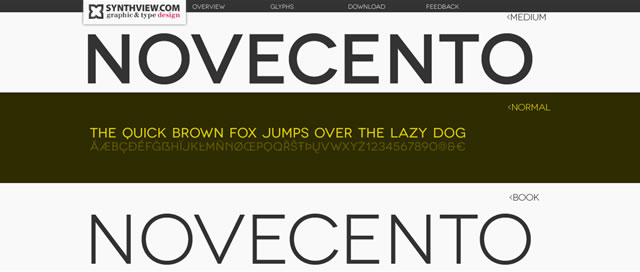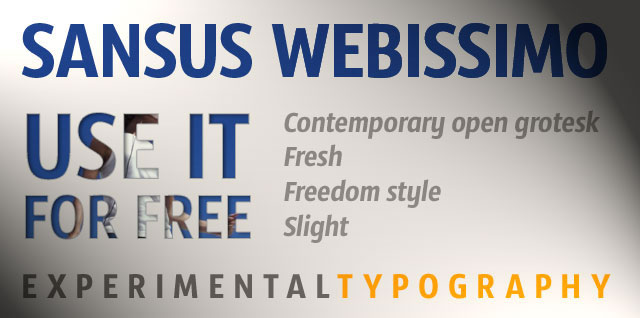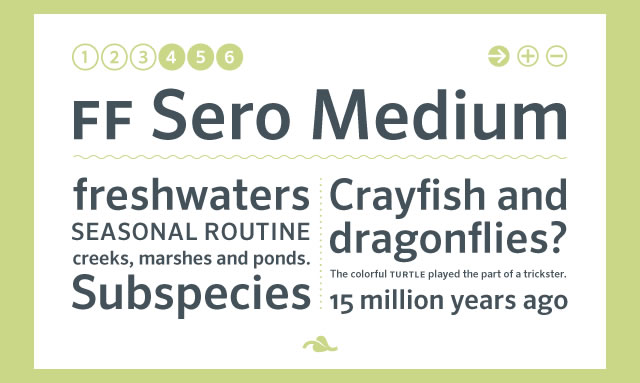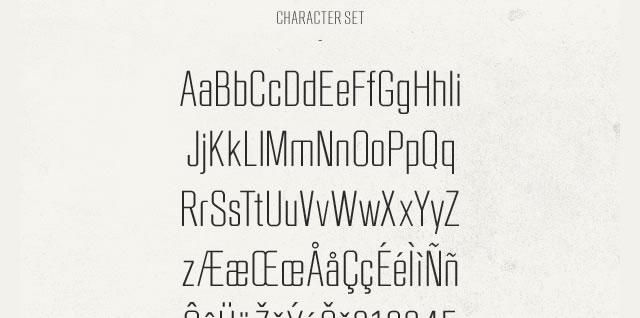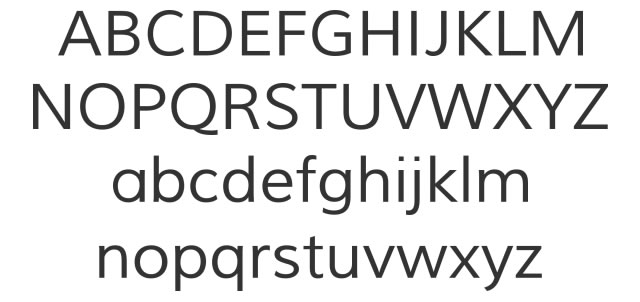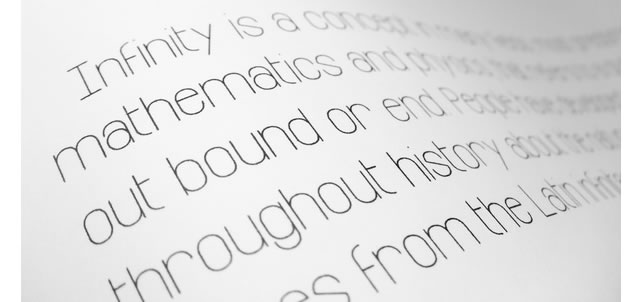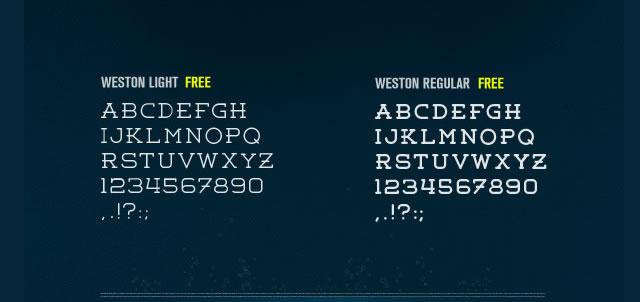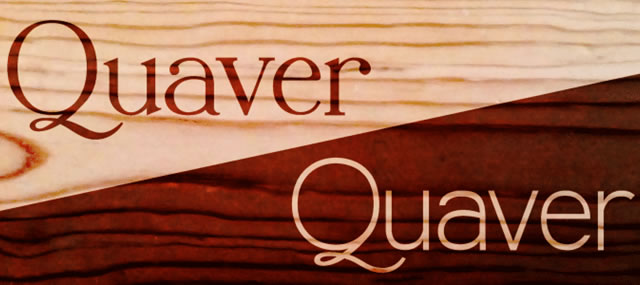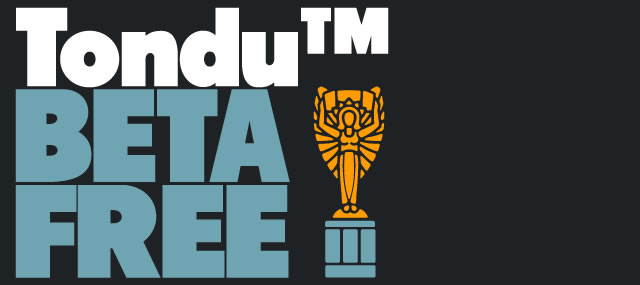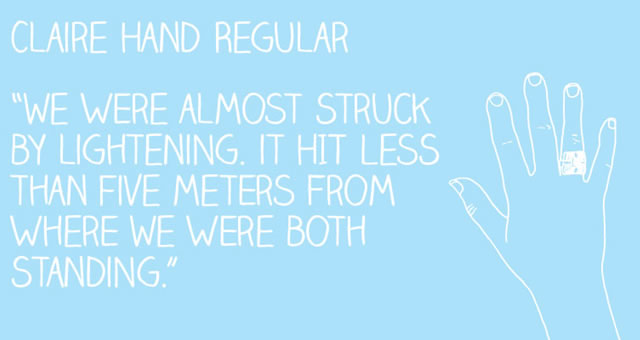
20 More Fresh & Free Fonts for Beautiful Headlines
Today’s round-up highlights 20 new(ish) elegant and free fonts that would be perfect for the headlines or titles of either a webpage or a print publication. We have previously published a post entitled 20 Free Fonts for Distinctive Headlines and Titles, you may want to check out as well.
Ostrich Sans (.ttf)
Novecento (.otf)
Sansus Webissimo (.otf)
FF Sero Medium (.otf)
RBNo2 (.otf)
Governor (.ttf)
Sheep Sans (.ttf)
Carme Sans-Serif (.otf & .ttf)
Muli (.ttf)
Infinity (.ttf)
Weston (.otf)
Quaver (.otf)
Tondu Beta (.otf)
Banda Regular (.otf)
Font FoglihtenFr02 (.otf)
Claire Hand Light & Reular (.otf)
Wisdom Script (.otf)
Legion Slab(.ttf)
and finally… SD Helveticons (.ttf)